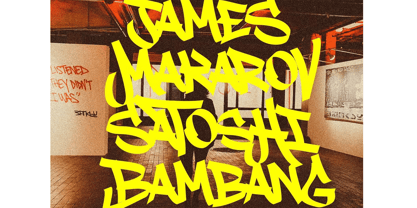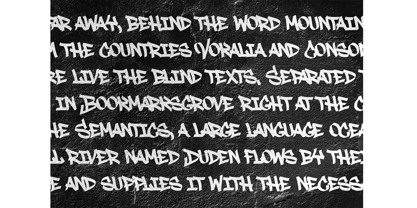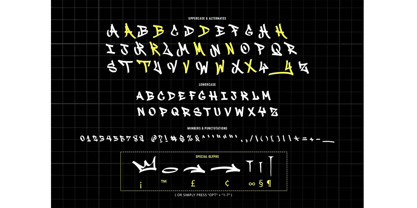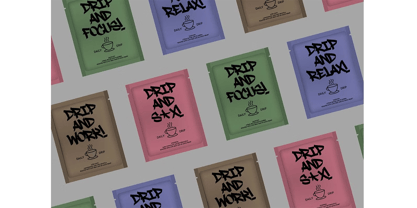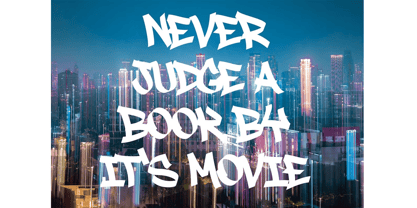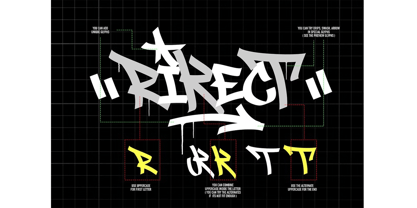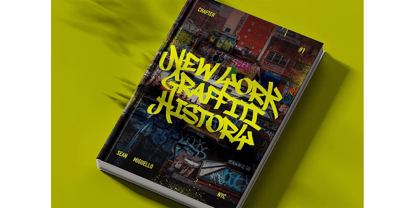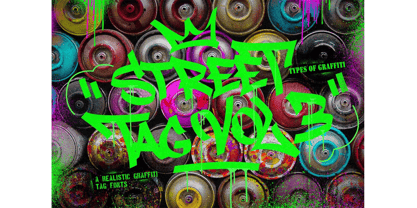
Street Tag Vol 3
by Types of Graffiti, LLC
The Street Tag Vol 3 Font Family was designed by Cipto Bagus Prakarso and published by Types of Graffiti, LLC. Street Tag Vol 3 contains 1 styles. More about this family
Bring your urban projects to life with this stunning typeface. Inspired from the graffiti tags in the streets. Created with a mixed angle marker brush to create the glyphs, making it a beautiful calligraphic handstyle, and possibly, the coolest graffiti fonts on earth right now! Perfect for all your urban designs. Designed by Cipto Bagus Prakarso, Published by Types of Graffiti, LLC
Designers: Cipto Bagus Prakarso
Foundry: Types of Graffiti, LLC